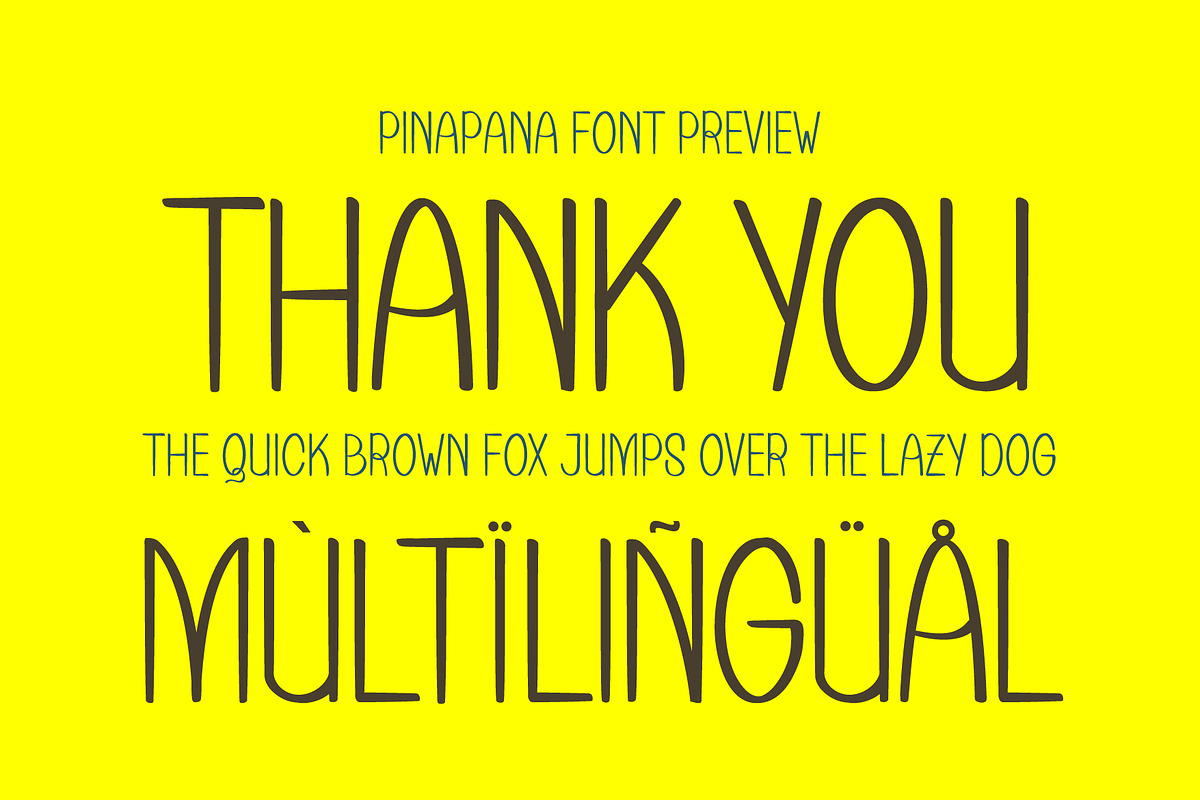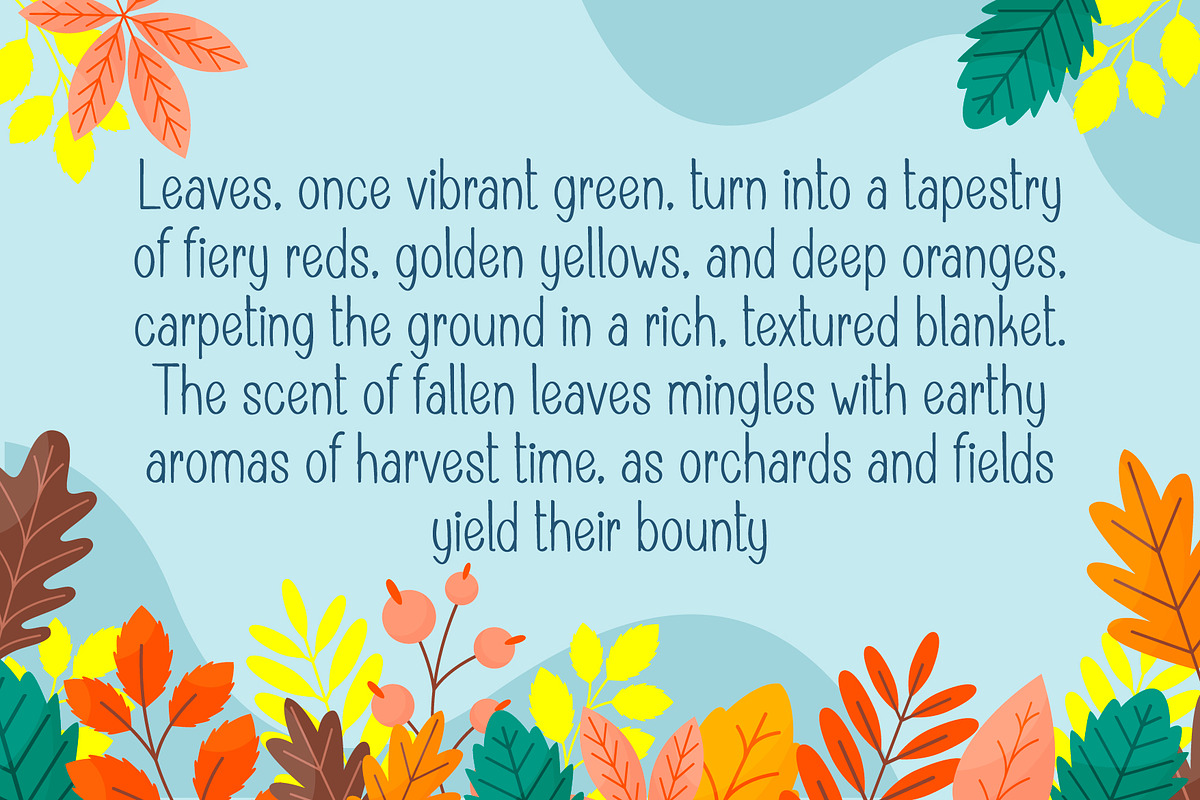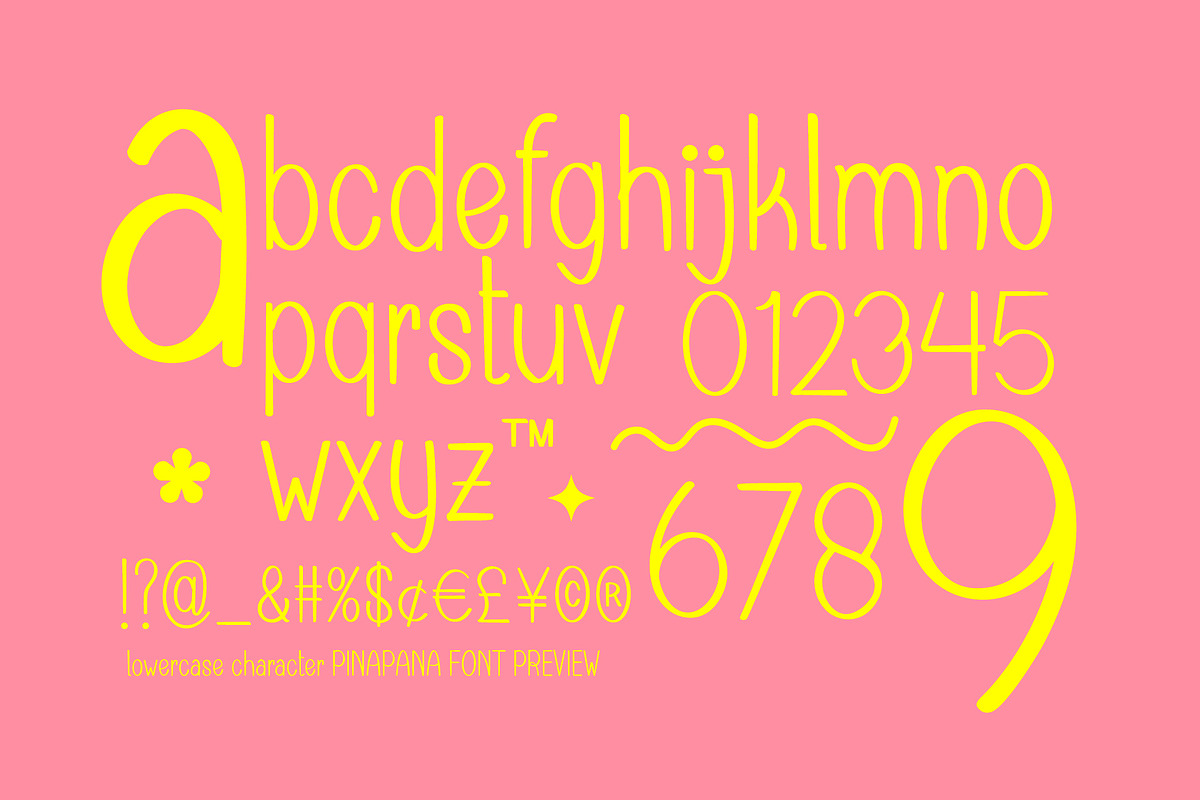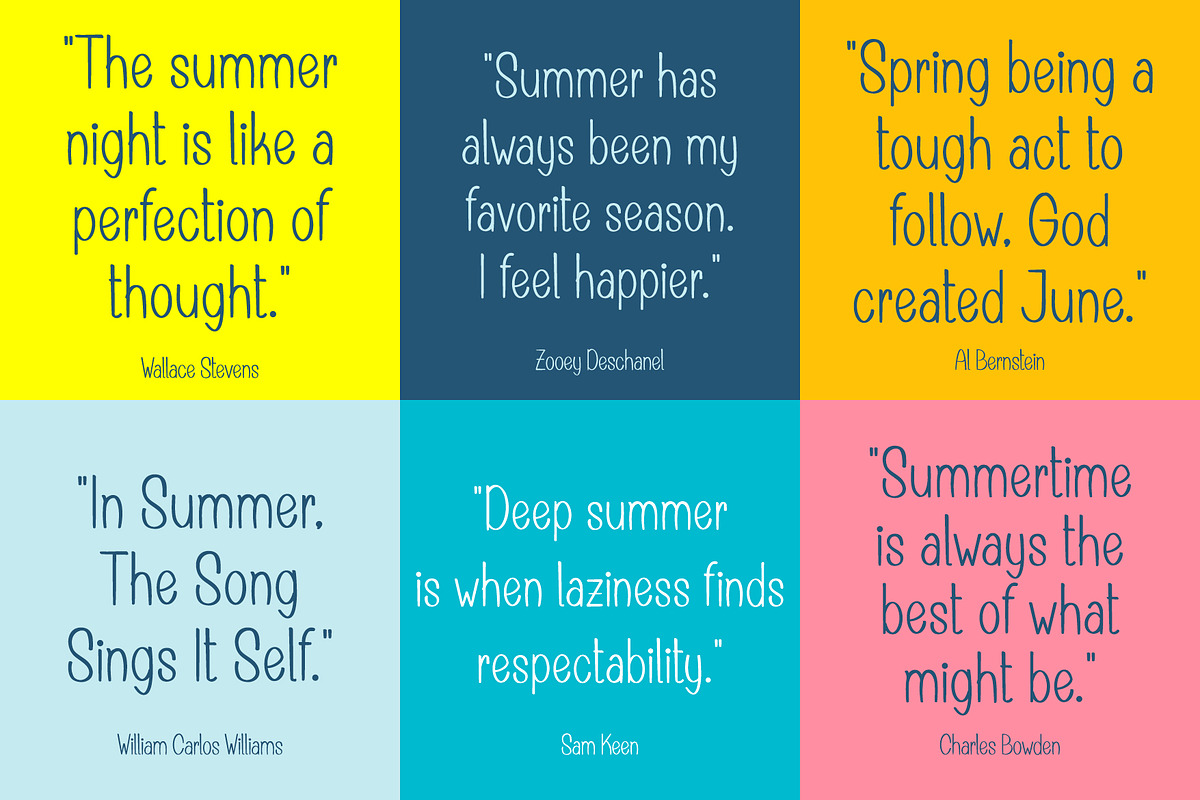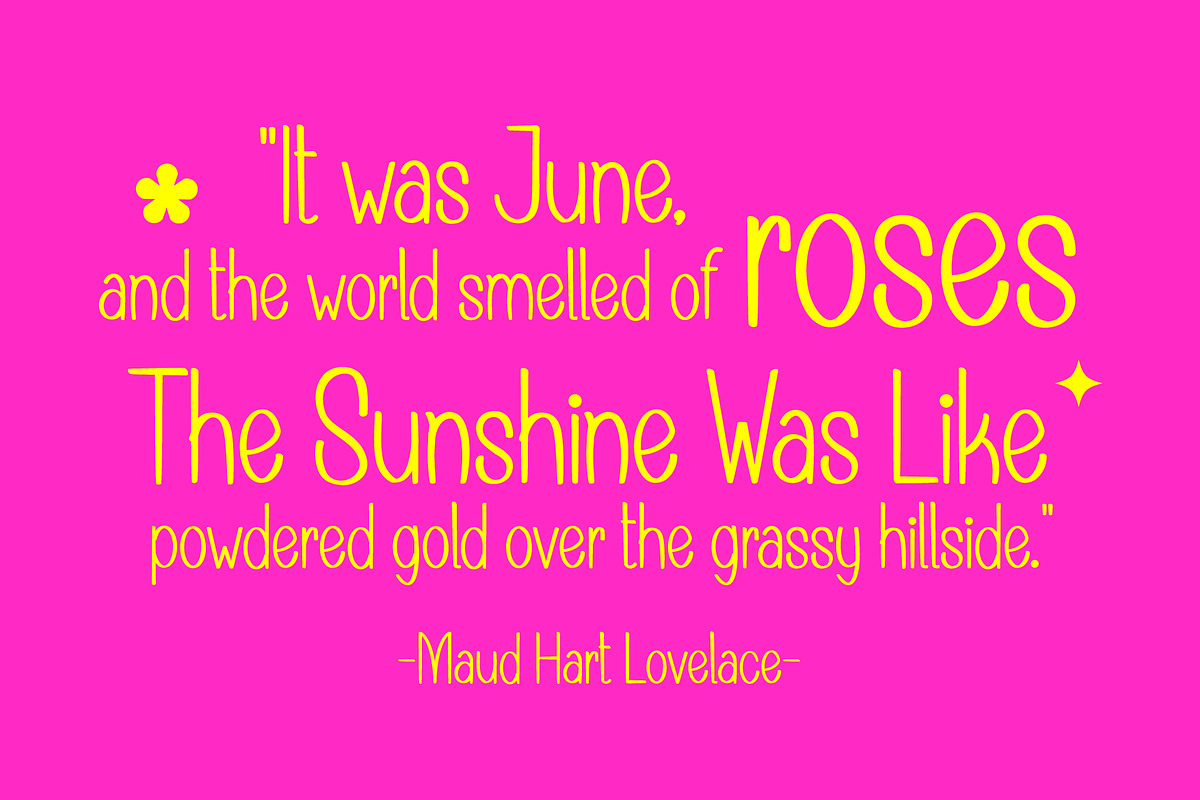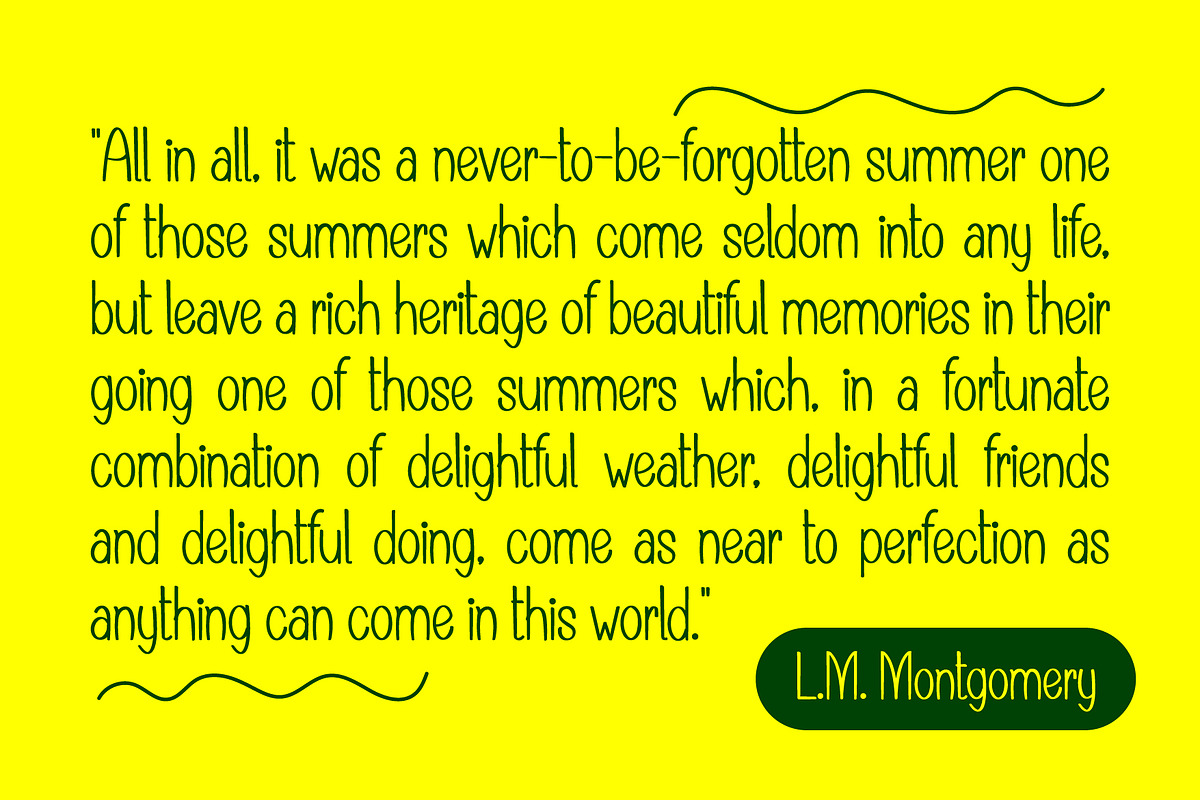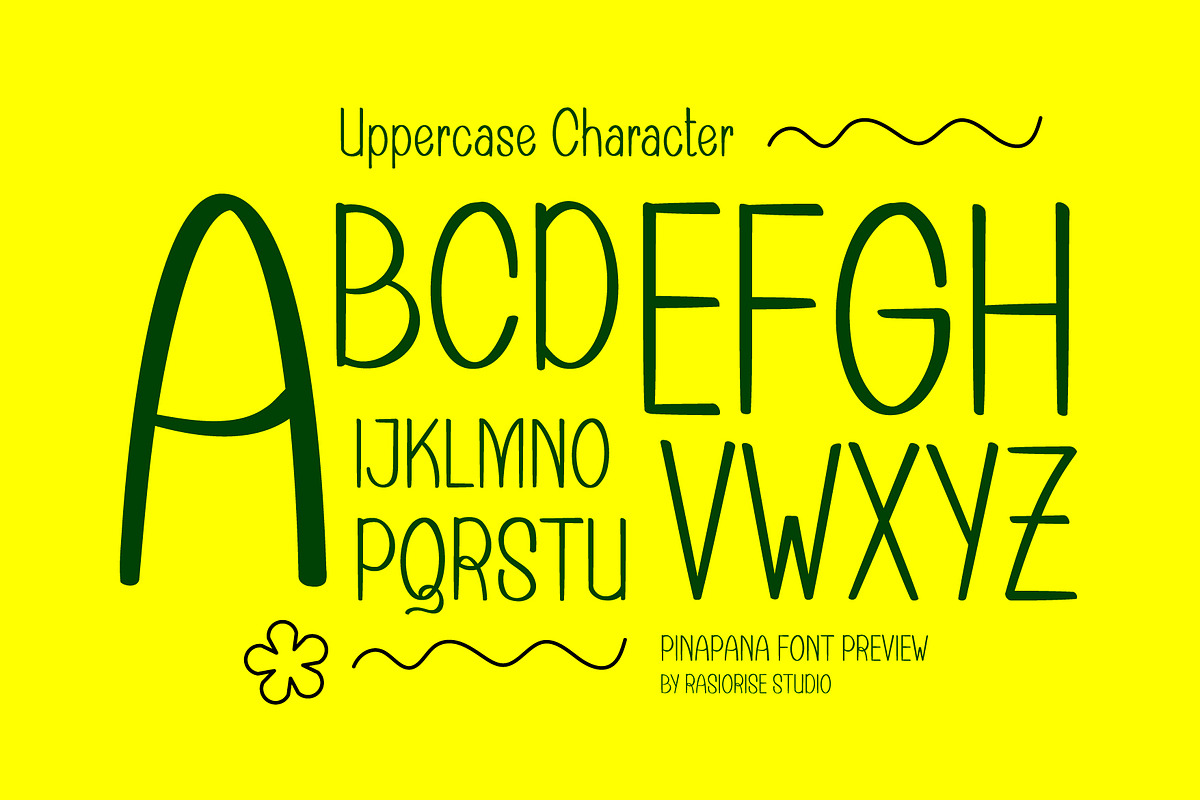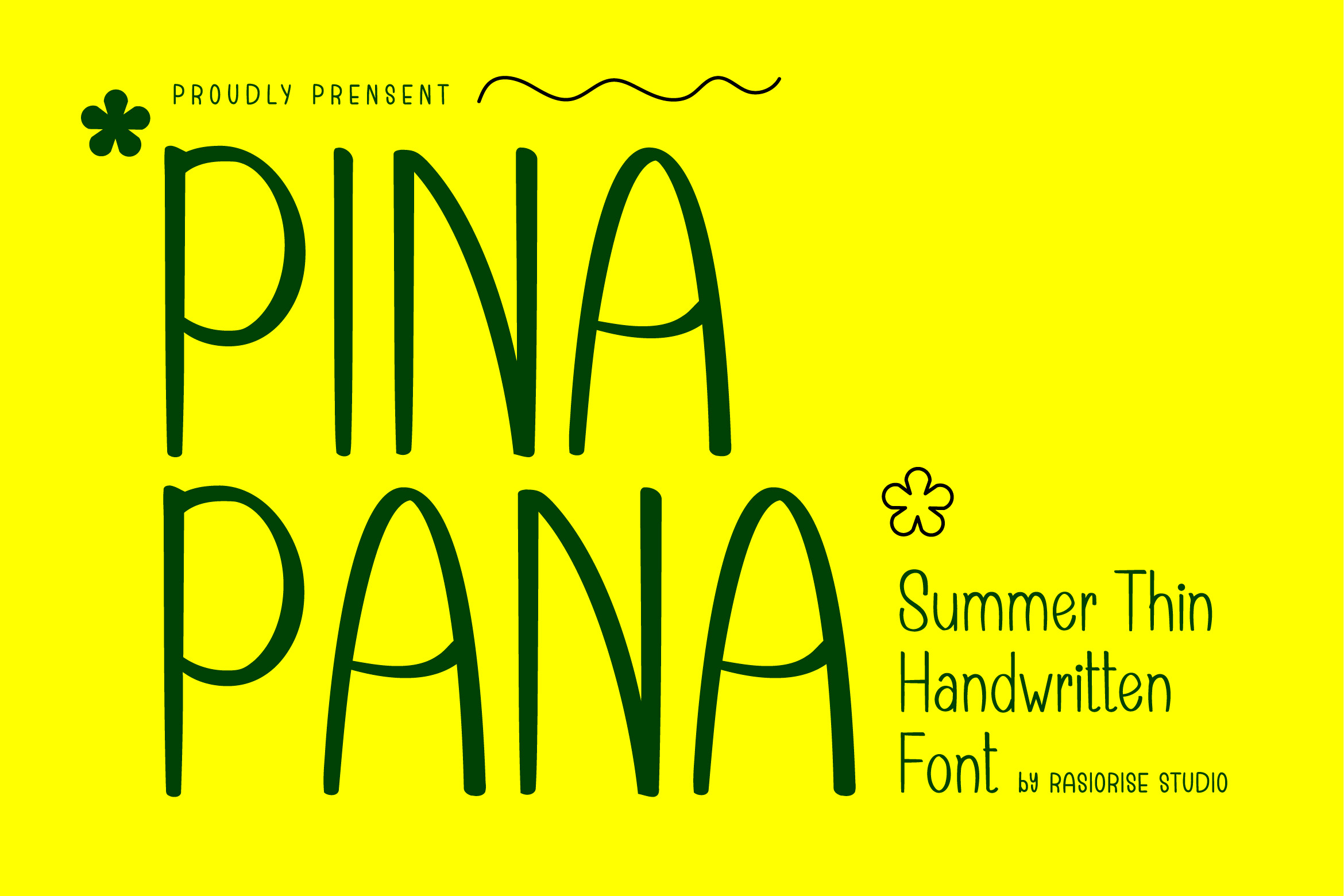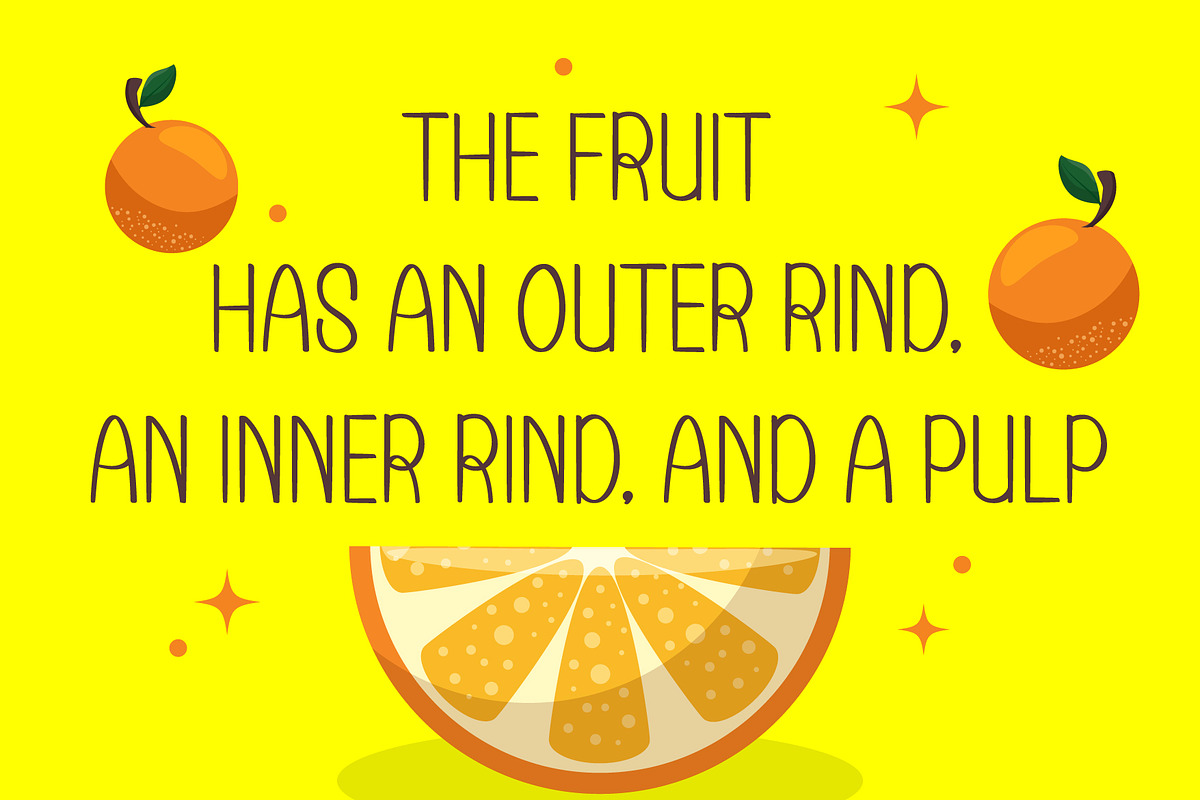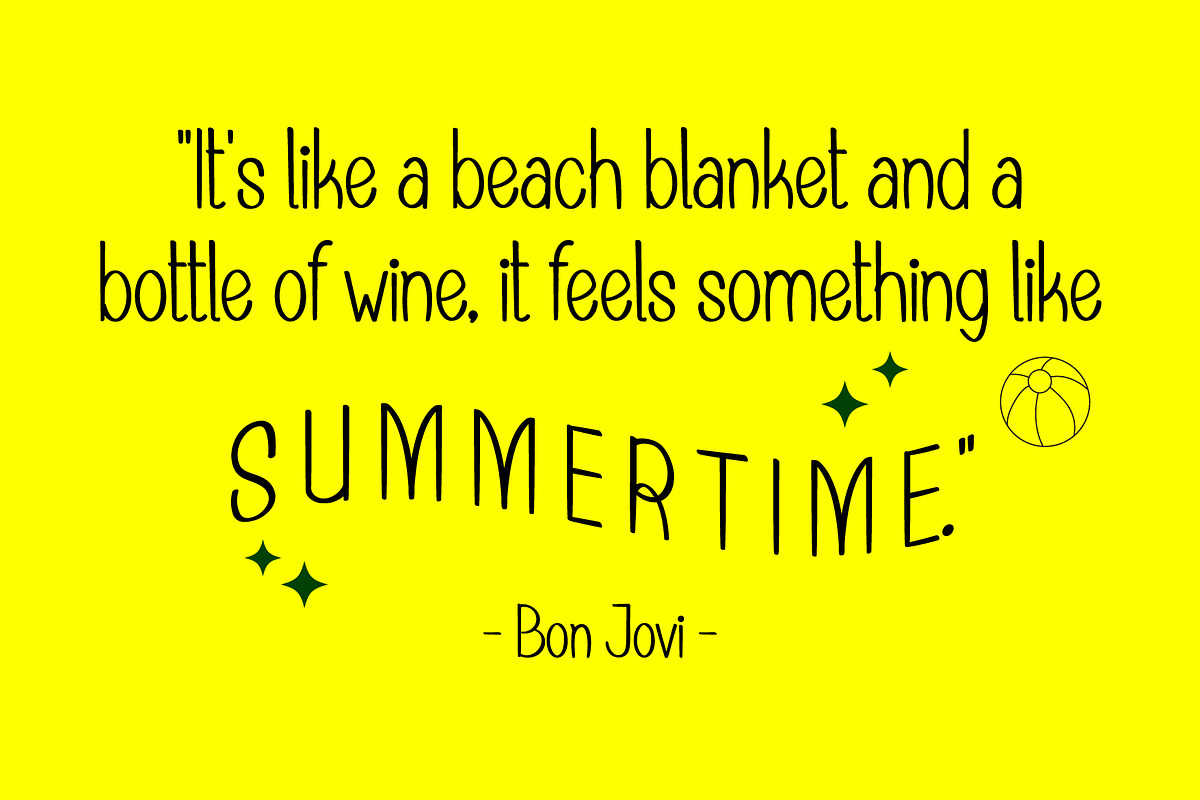
PinaPana a Fancy Handwritten Font
Hello Everyone! PinaPana a delightful typeface that captures the essence of Simple Monoline and creativity. With its elegant, flowing lines and a light, airy feel, this font is perfect for adding a personal touch to your projects. Despite its thin design, the font maintains excellent legibility, ensuring your message is clear. Whether you’re designing invitations, greeting cards, or social media graphics,
PinaPana the Summer Thin Handwritten brings a unique charm that will make your text stand out.
This font is reguler character style, included as the Uppercase and Lowercase regular character, numeral and multilingual support. Very suitable for Logotype, Invitations, Greeting Cards, Monoline Signature, Book Cover, Summer Poster, Comic Text, Merchandise, Poem and much more. Let the PinaPana the Summer Thin Handwritten Font elevate your creative projects with its stylish and sophisticated flair. Embrace the spirit of summer in your designs!